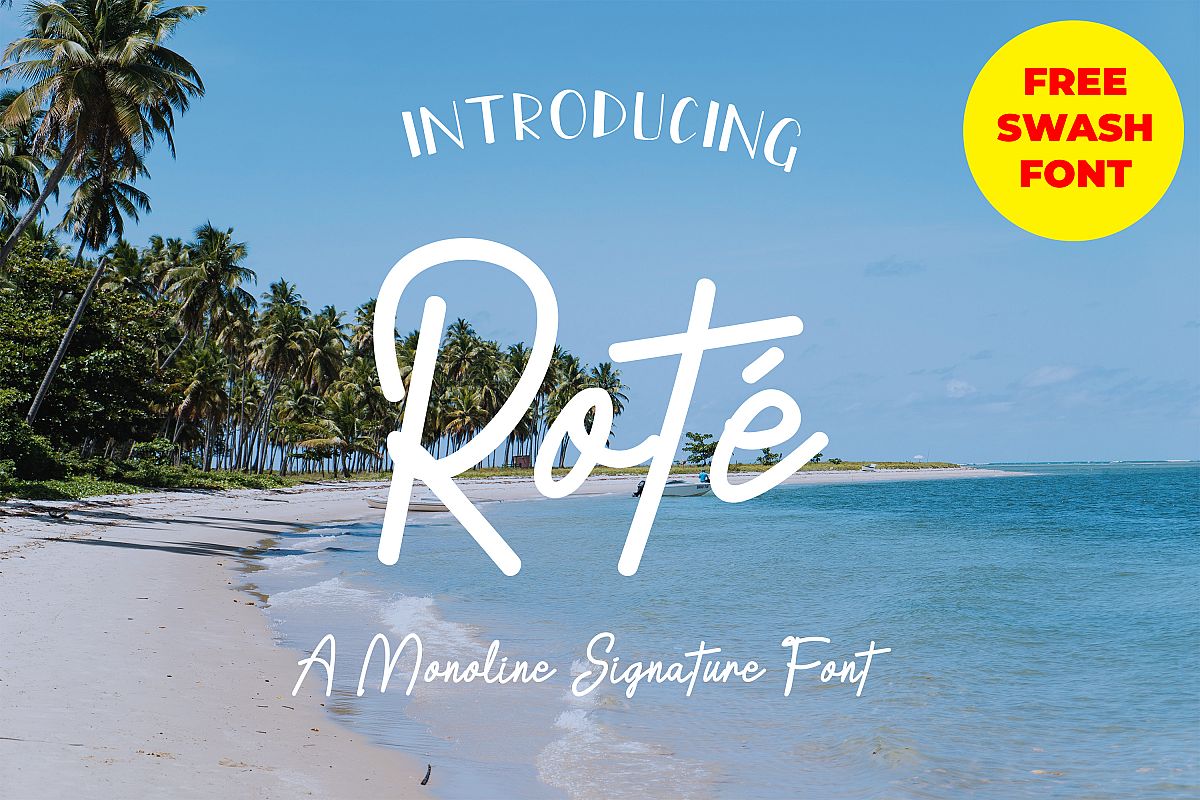
Rote Signature
Rote is a Monoline Signature Font. It is a unique and elegant font. That will be matched for your design for example wedding invitation, videography, photography, and many more.
• Kerning Repair
• Stylistic ligature and alternate